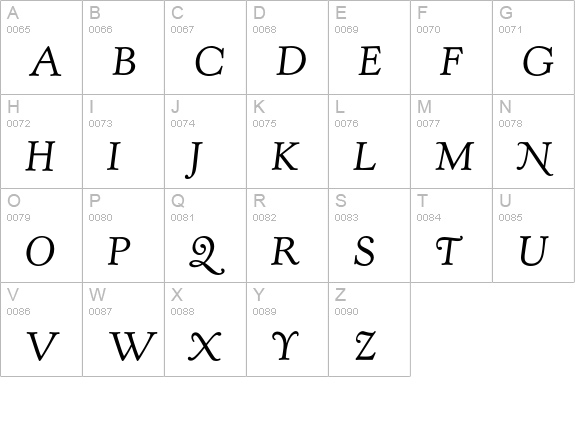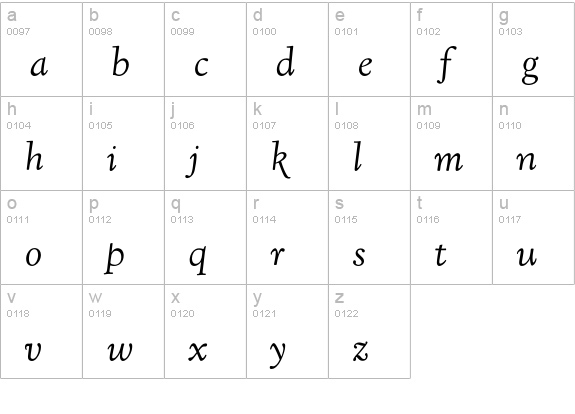
Kennerley Old Style Italic is a distinctive, italic variant in the Kennerley typeface family \xE2\x80\x94 well suited to design and typography projects.
Kennerley Old Style Italic font is a timeless and elegant typeface that captures the essence of classic calligraphy. Its graceful curves and delicate strokes create a sense of sophistication and refinement, making it perfect for adding a touch of elegance to any design project. This font features a unique italic style, adding a sense of movement and fluidity to the letterforms. The slanted angles and subtle variations in stroke thickness create a sense of dynamic energy, making Kennerley Old Style Italic font a versatile choice for both formal and informal designs. Whether you're designing wedding invitations, elegant logos, or stylish branding materials, Kennerley Old Style Italic font will effortlessly elevate your project with its timeless appeal. Its legibility and clarity ensure that your message will be conveyed with utmost precision and style. But what makes Kennerley Old Style Italic font even more appealing is that it is freely available to download at FontsMarket.com. This means that you can enjoy the beauty and versatility of this font without any cost. It's a fantastic opportunity to enhance your design projects without breaking the bank. So, why wait? Download Kennerley Old Style Italic font today from FontsMarket.com and elevate your designs to new heights. Let the elegance and grace of this font capture the attention of your audience and leave a lasting impression.